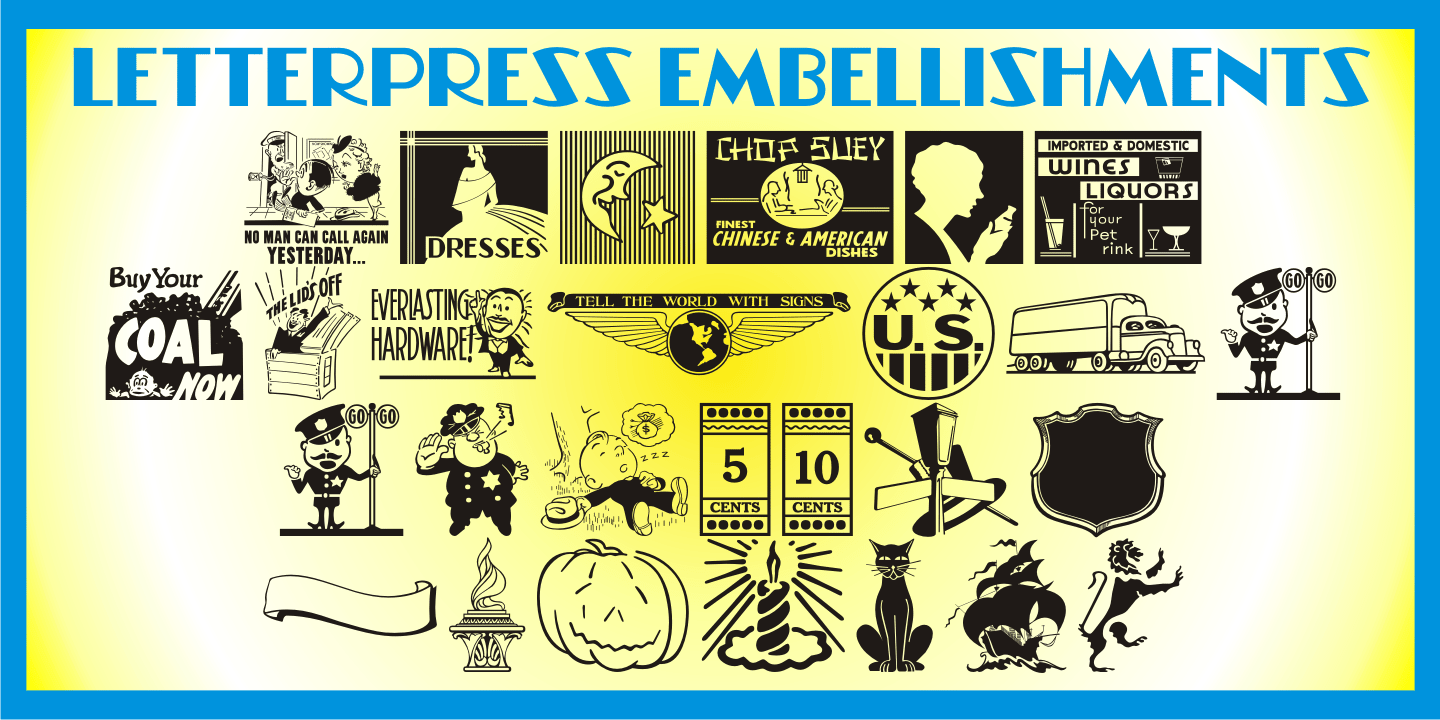
Letterpress Embellishments
Letterpress Embellishments JNL is another typographic collection of assorted stock advertising cuts, ornaments, cartoons and other miscellany found within the type drawers of letterpress printers and based on vintage source material.
Letterpress Embellishments includes 65 glyphs.
Letterpress Embellishments JNL Regular by Jeff Levine Fonts